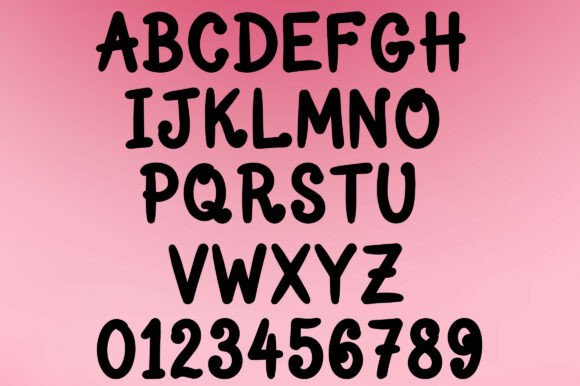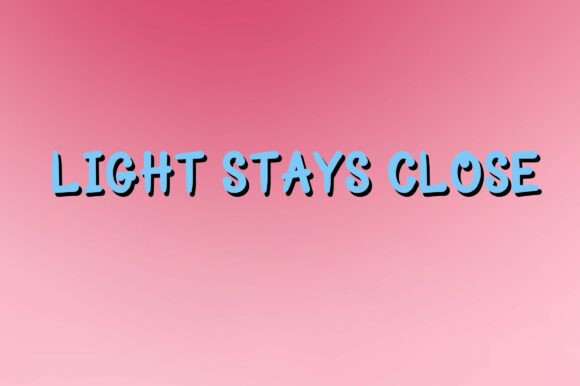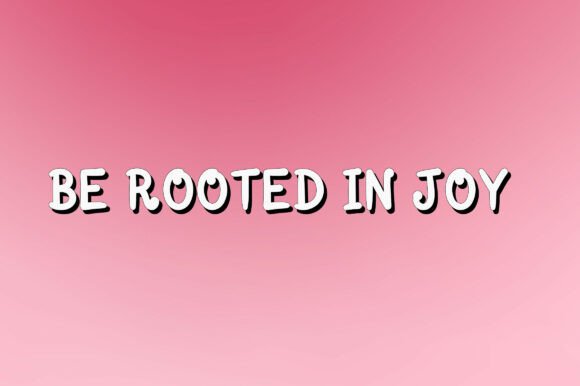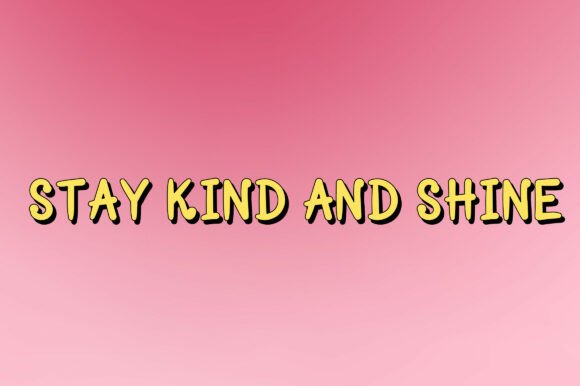
Introduction to Cora Font
CORA is a playful display font with a cute cartoon style and cheerful handcrafted charm.
Its uppercase letterforms feature thick rounded strokes, soft bubbly curves, fun curled details, and bold shadow effects that create a lively, friendly, and eye-catching look Designed with uppercase letters A–Z and numbers 0–9, CORA is perfect for kids’ designs, posters, party invitations, packaging, stickers, logos, social media graphics, and creative projects that need a sweet and memorable typeface.